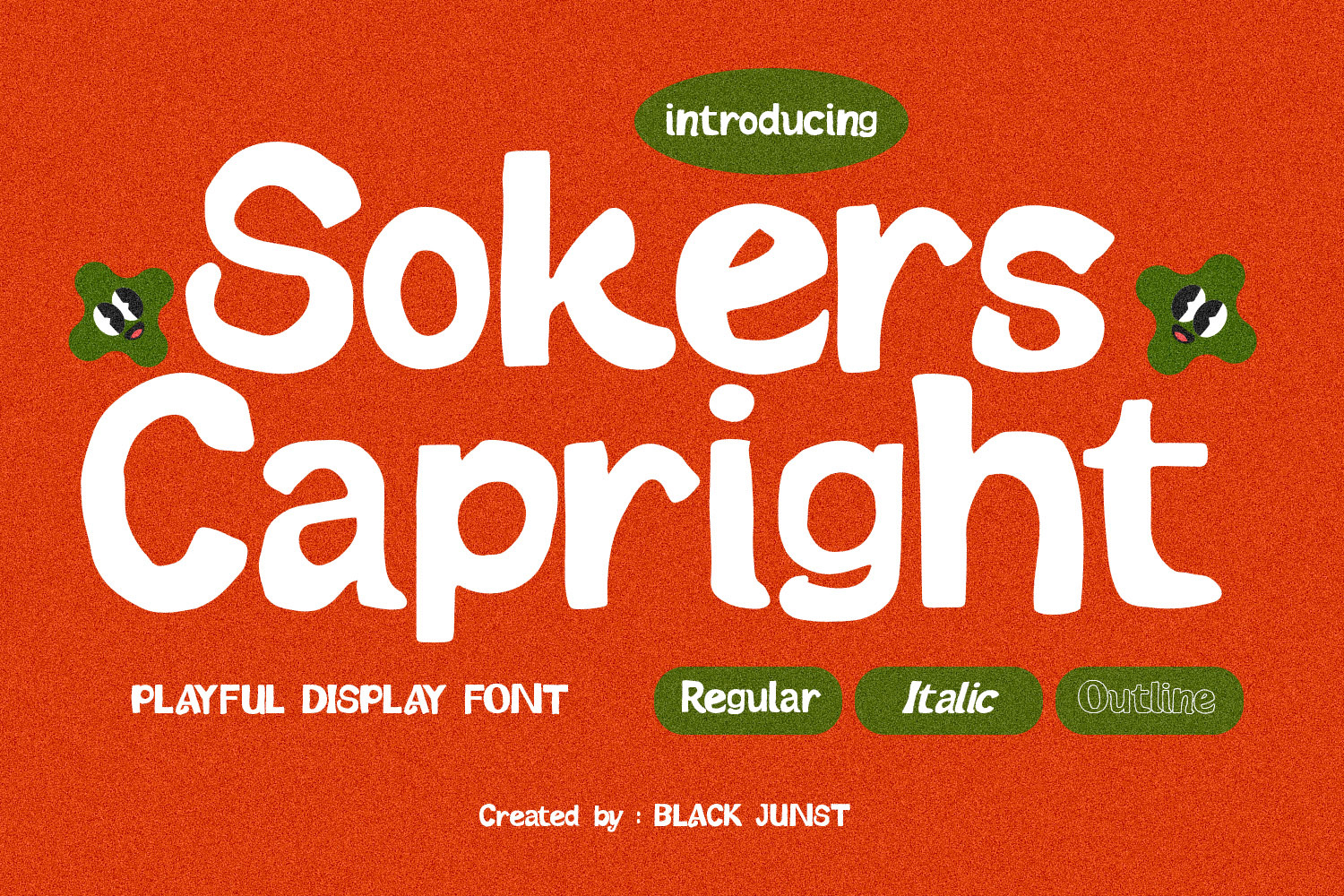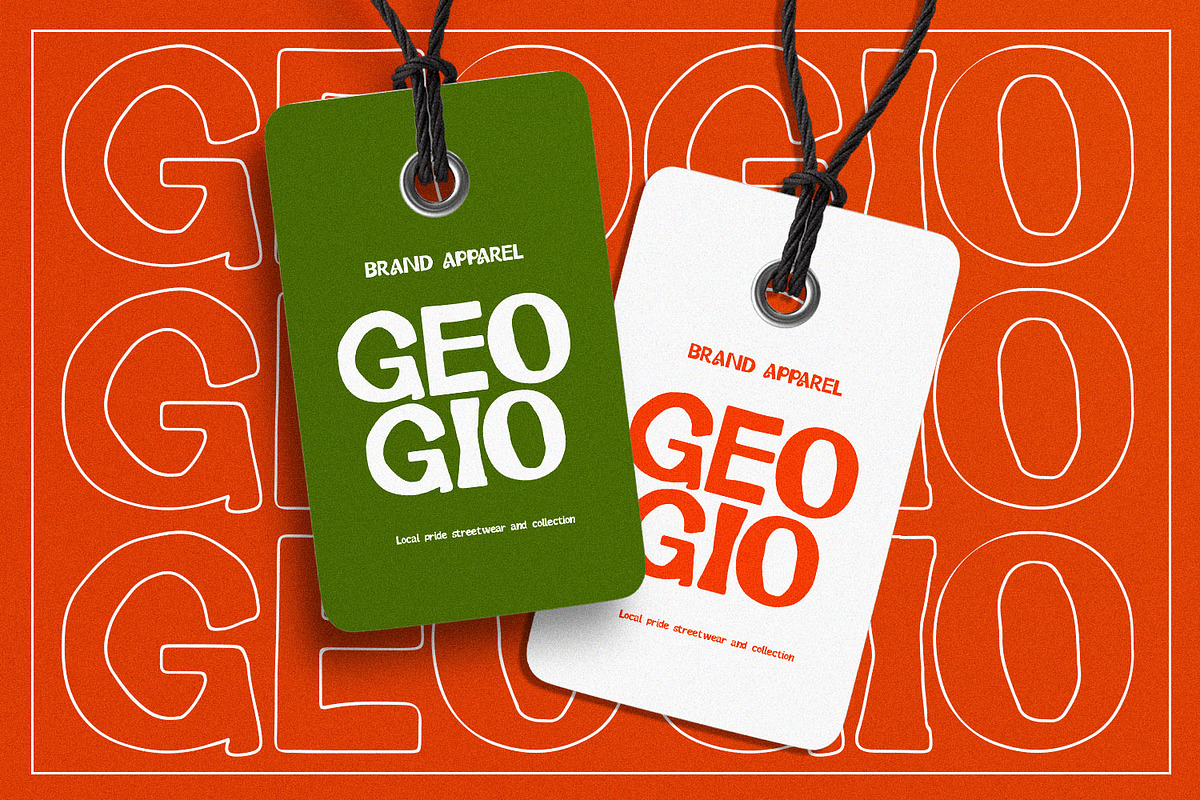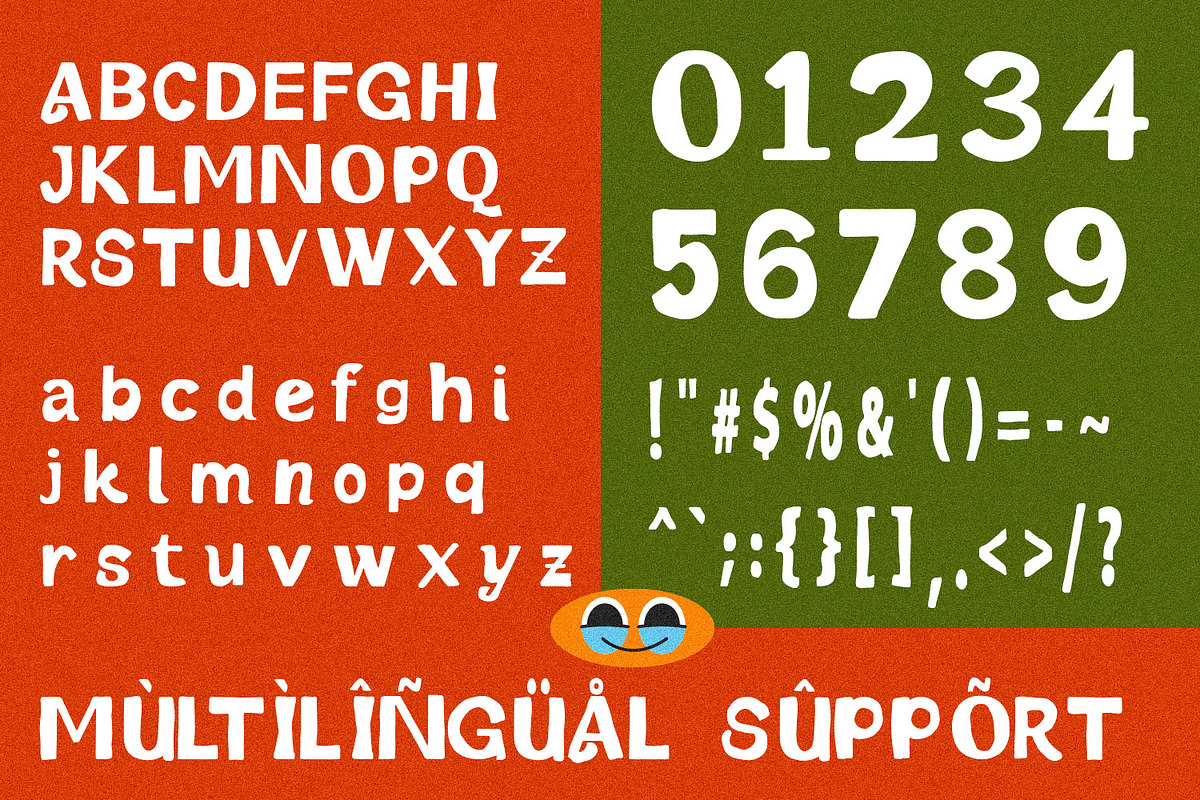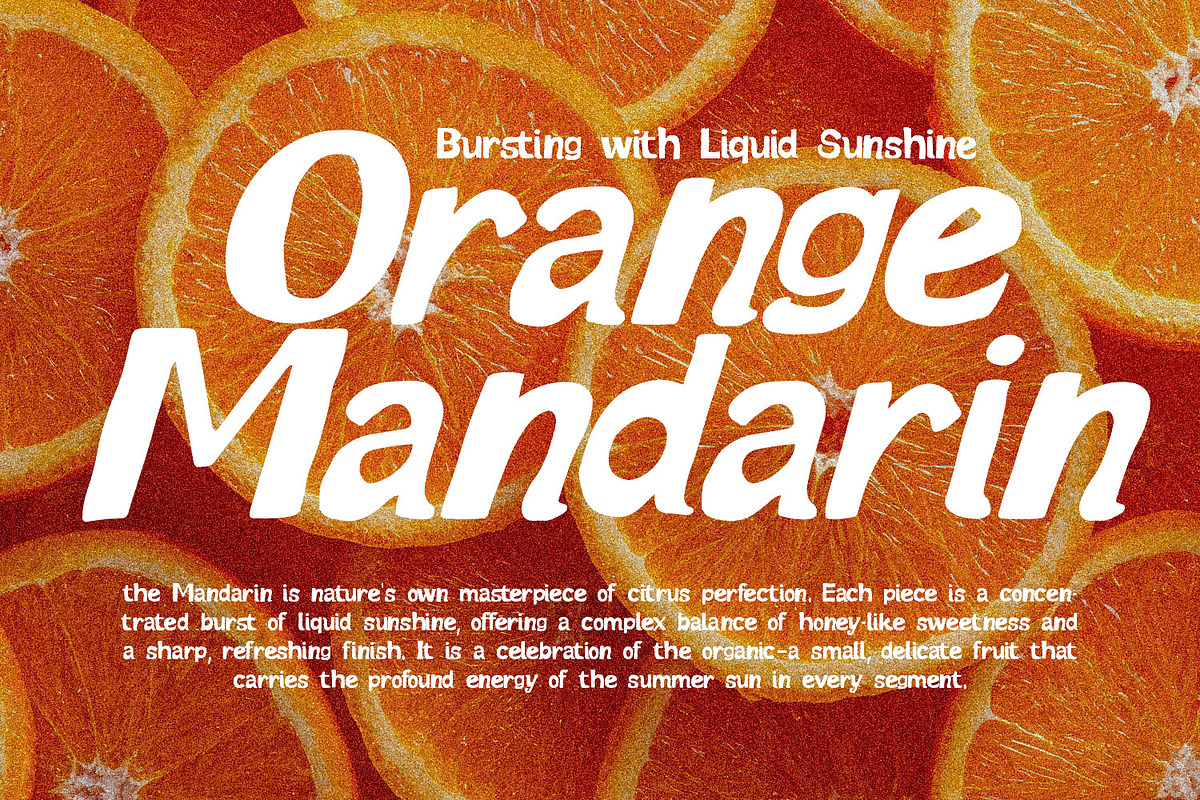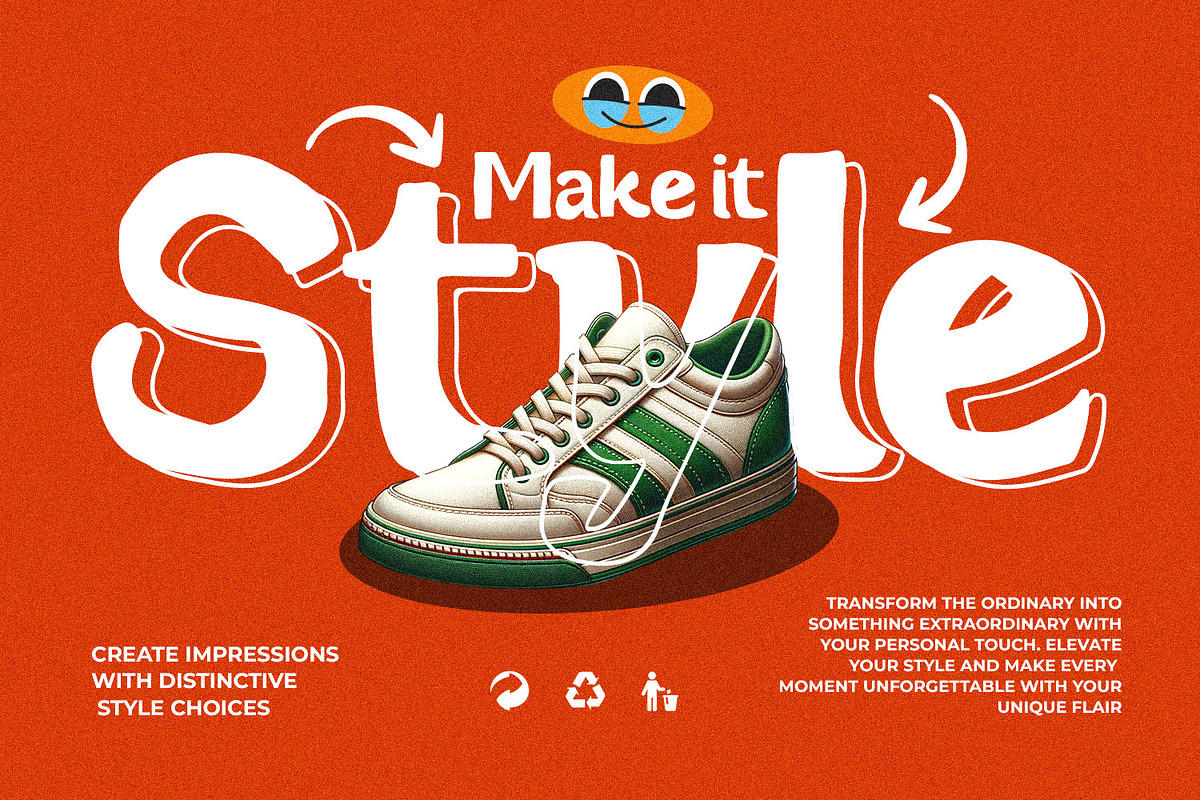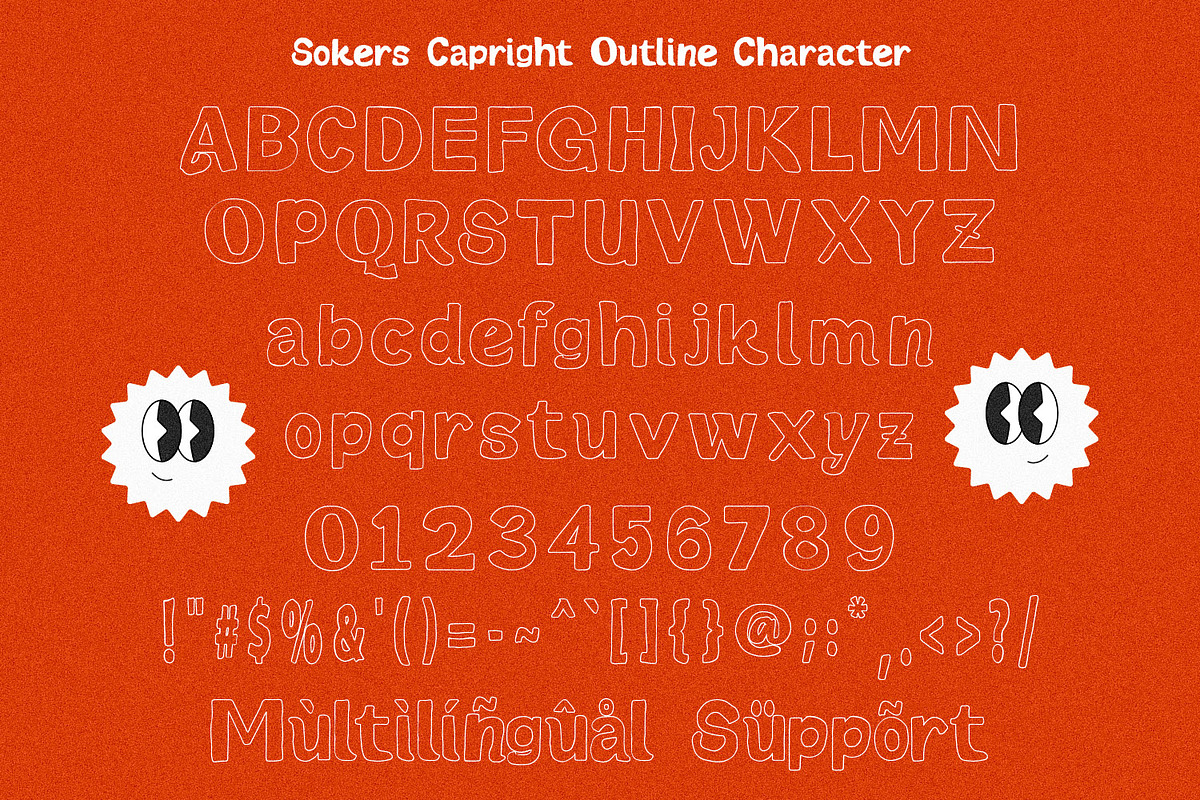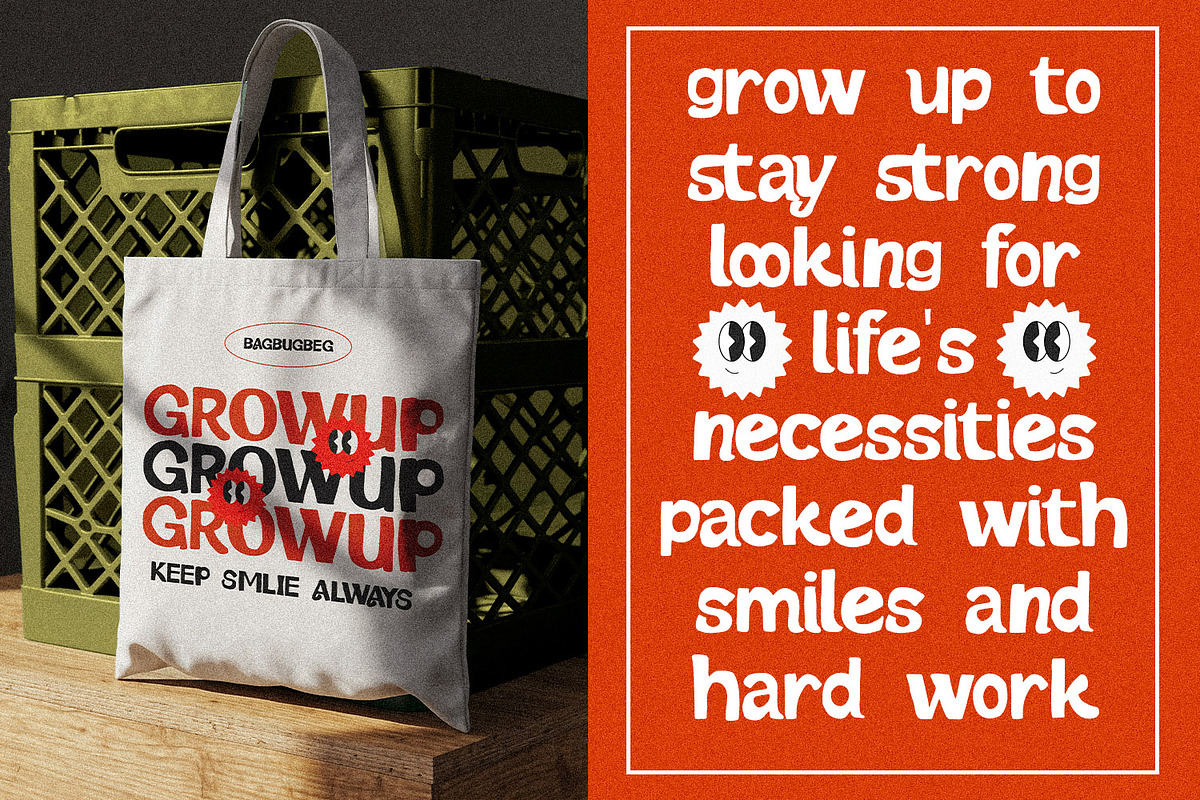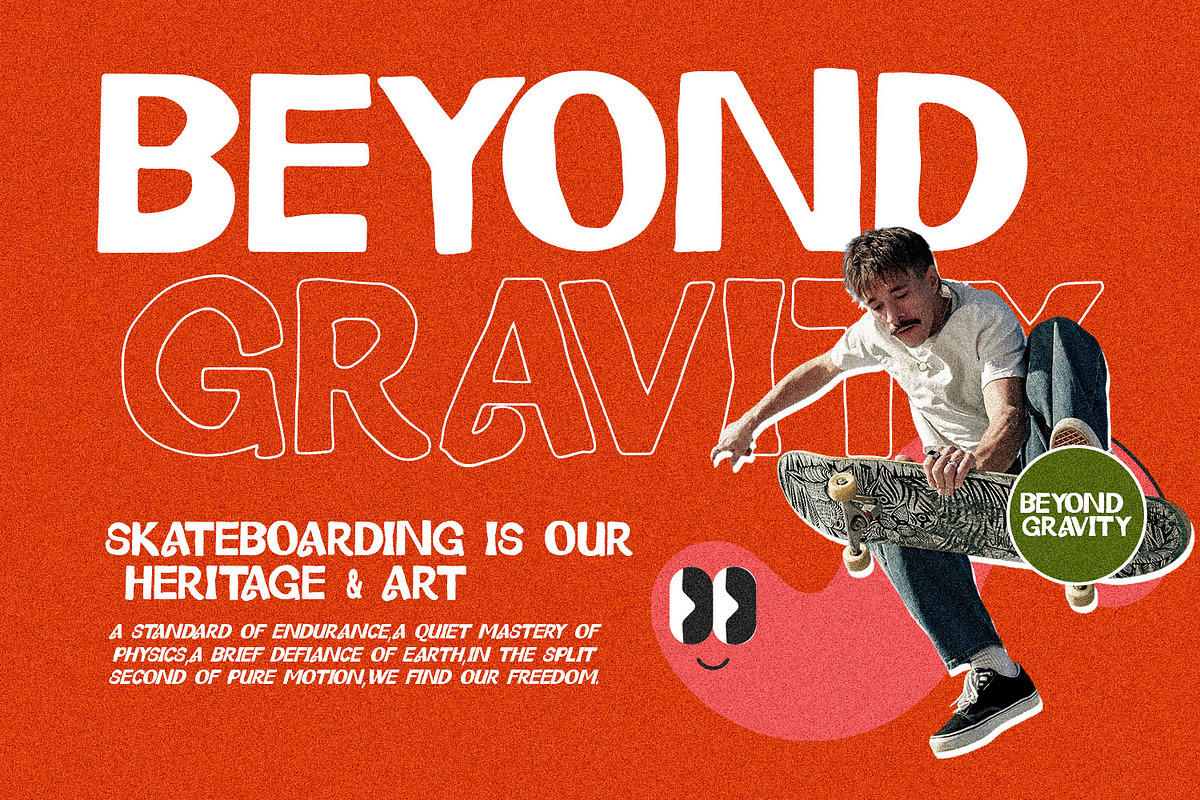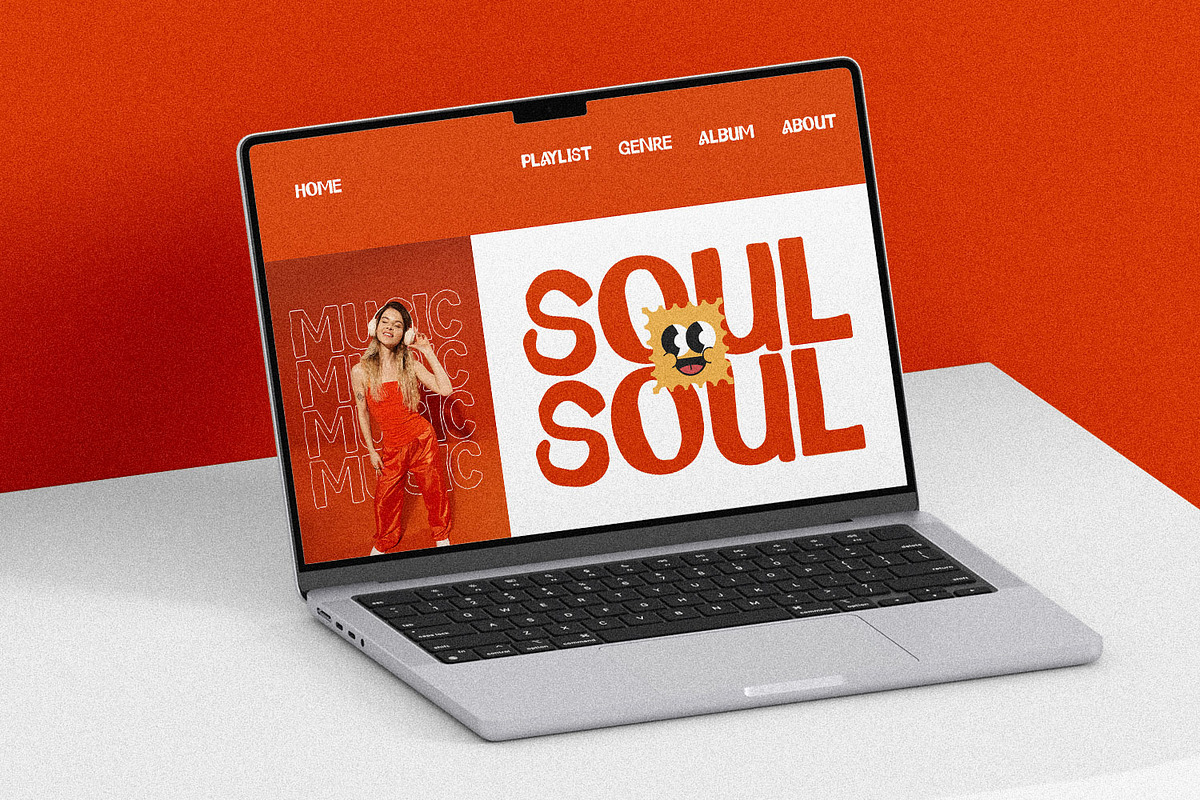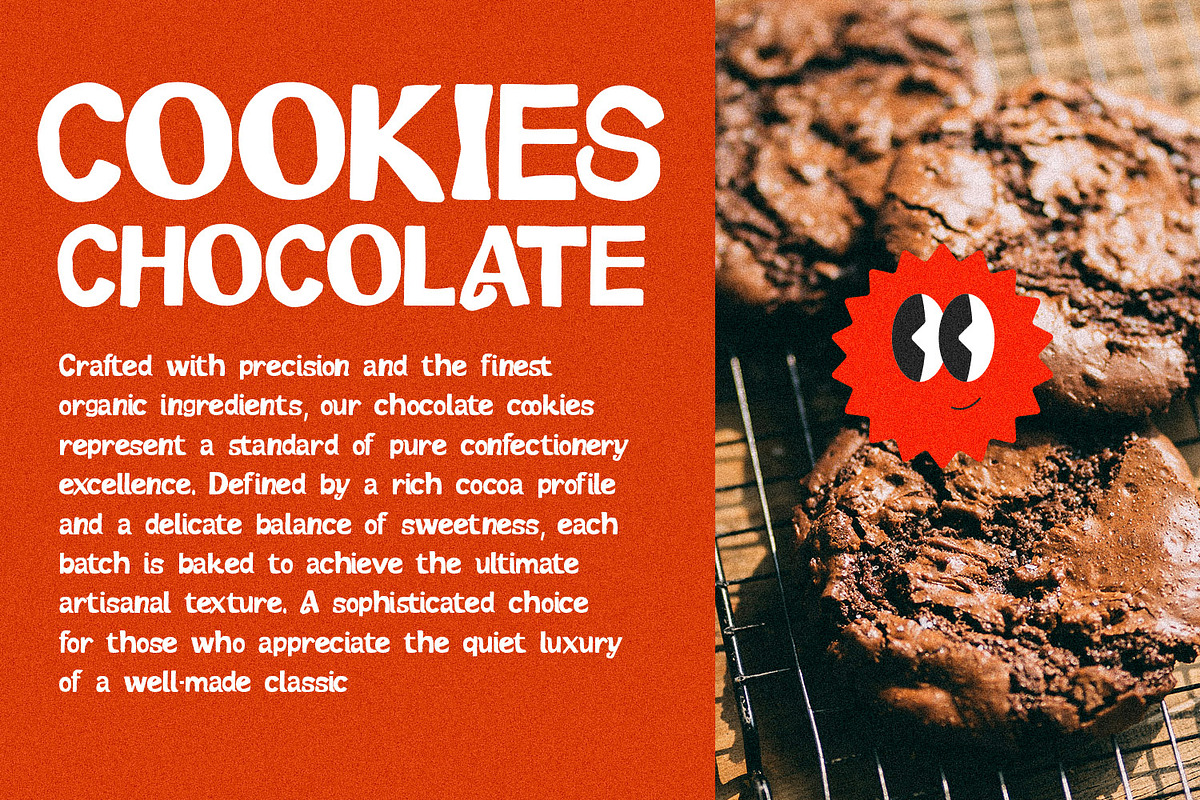
Sokers Capright – Playful Font
Sokers Capright is a playful display font designed to bring bold personality and fun energy into your creative projects. With its chunky, organic letterforms and slightly irregular shapes, this typeface delivers a friendly, hand-crafted feel that instantly grabs attention.
Perfect for branding, packaging, posters, social media, and children-themed designs, Sokers Capright blends retro charm with modern playfulness. The font comes in multiple styles including Regular, Italic, and Outline, giving you flexibility to create dynamic and eye-catching compositions.
Whether you're working on snack packaging, streetwear branding, or vibrant editorial layouts, this font adds a cheerful and expressive tone to your typography.
Stylish Alternates & Ligatures
Regular,Italic,and Outline